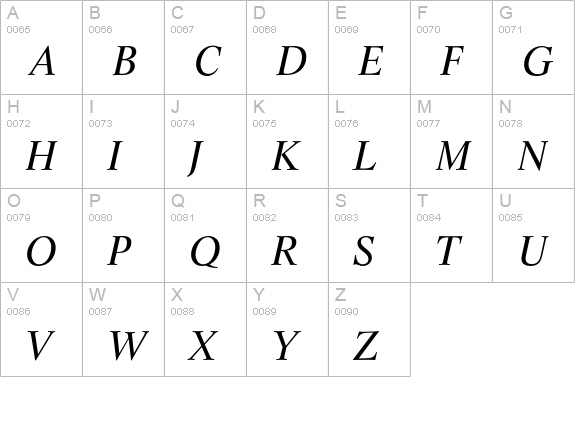
12 Life** Italic 13150 is a distinctive, italic variant in the 12 typeface family \xE2\x80\x94 well suited to design and typography projects.
The 12 Life** Italic 13150 font is a stunning and elegant typeface that exudes a sense of sophistication and style. Its sleek and modern design makes it perfect for a wide range of creative projects, from branding to print materials. The italic style adds a touch of flair and personality to any text, making it stand out and capture attention. This versatile font is freely available to download at FontsMarket.com, making it accessible to all designers and creatives looking to elevate their work with a touch of elegance. Whether you're designing a website, creating a poster, or crafting a logo, the 12 Life** Italic 13150 font is sure to make a statement and leave a lasting impression on your audience. Don't miss out on this beautiful typeface – download it today and take your designs to the next level!